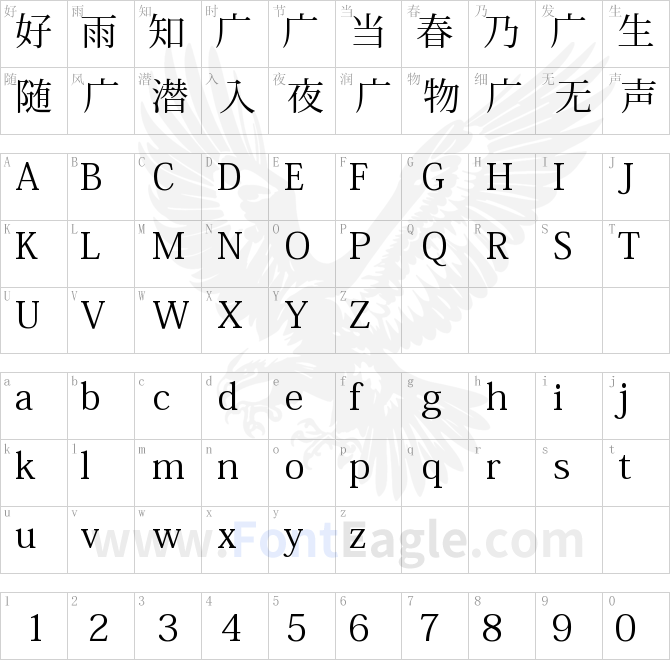
KozMinProVI-Regular is a great font, widely used in graphic design, single-page menu design, poster design and other fields, and is deeply loved by designers.KozMinProVI-Regular download.